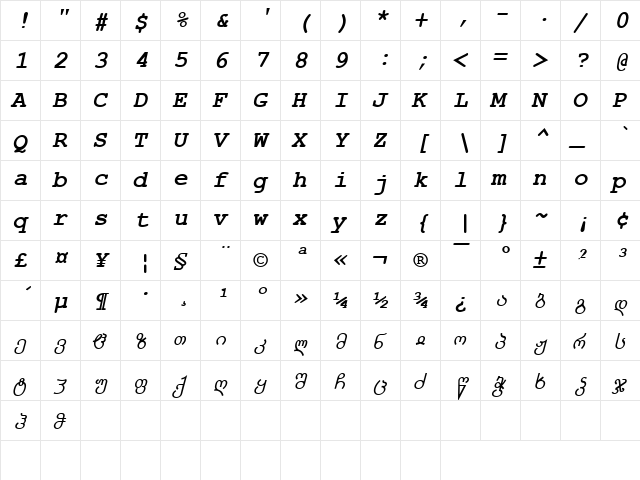
Geo_Courier Bold Italic Font Preview
Design Context for Geo_Courier Typeface
Geo_Courier uses fixed-width spacing throughout, giving it the structured, systematic character associated with coding environments and technical documentation. The dynamic lean of this cut emphasises speed and emphasis in any layout. The heavy weight commands attention and anchors typographic hierarchies.
Pro Tip: Pair Geo_Courier with a proportional sans for UI contexts where code-style labels and regular body copy need to coexist.